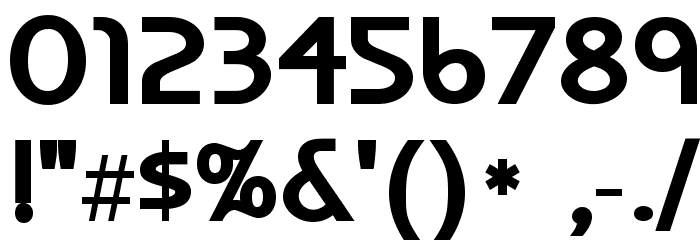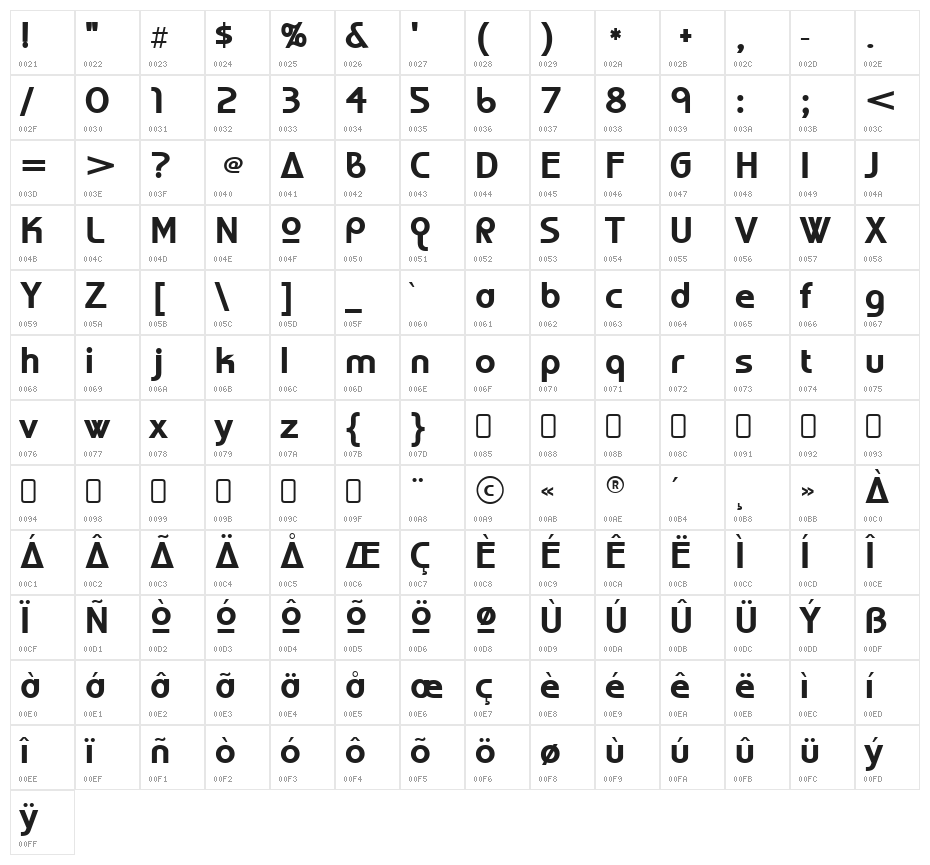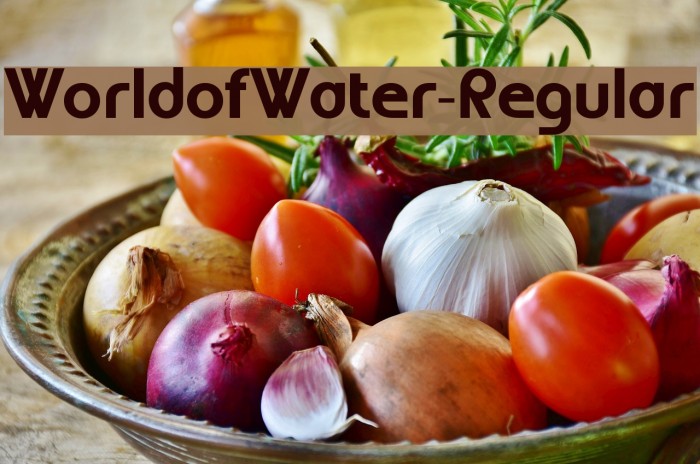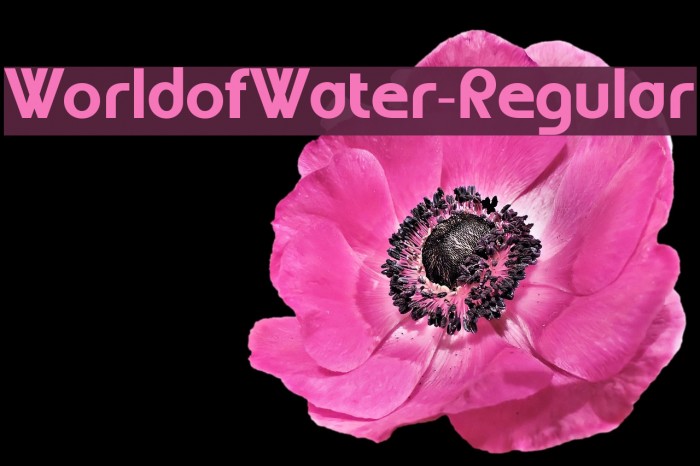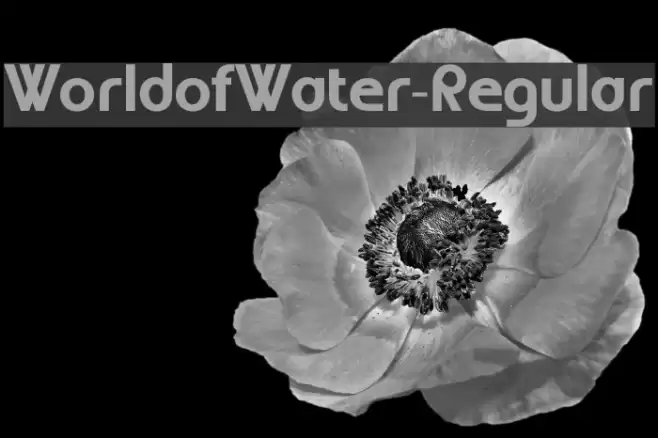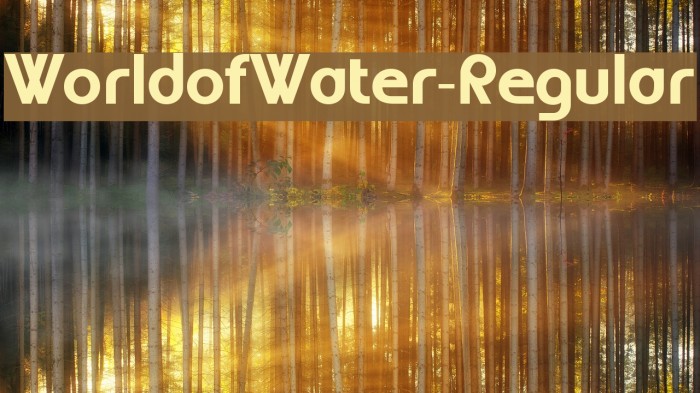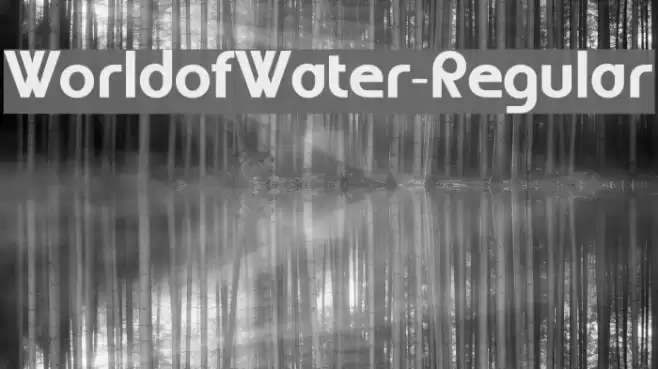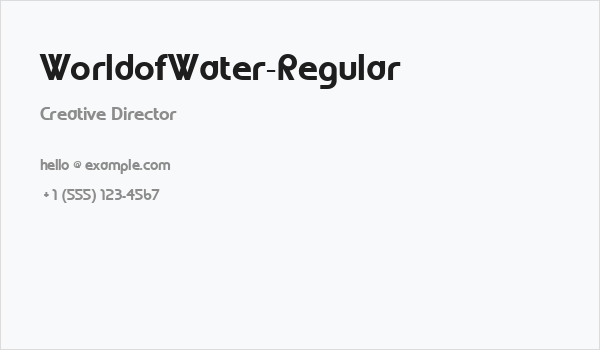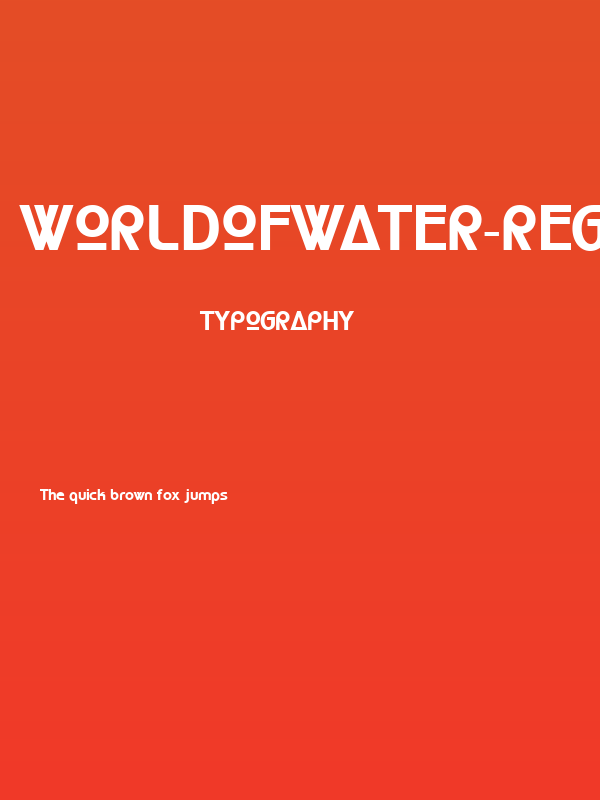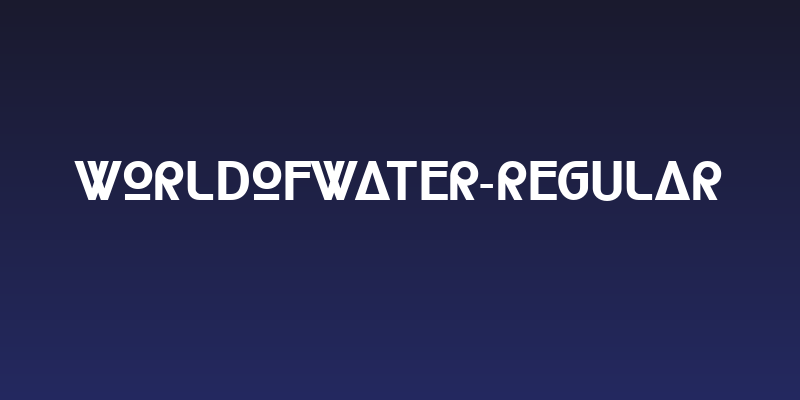
WorldofWater-Regular Font
WorldofWater-Regular Description
This font presents a bold and modern aesthetic with a geometric influence. The characters are crafted with a uniform stroke width, giving it a clean and structured appearance. The uppercase letters are particularly distinctive, featuring unique shapes such as the triangular 'A' and the circular 'O'. The lowercase letters maintain a consistent style, with rounded forms that complement the uppercase set. The numerals are clear and legible, designed to match the overall boldness of the font. Special characters are included, maintaining the same geometric and modern style, making this font versatile for various uses.